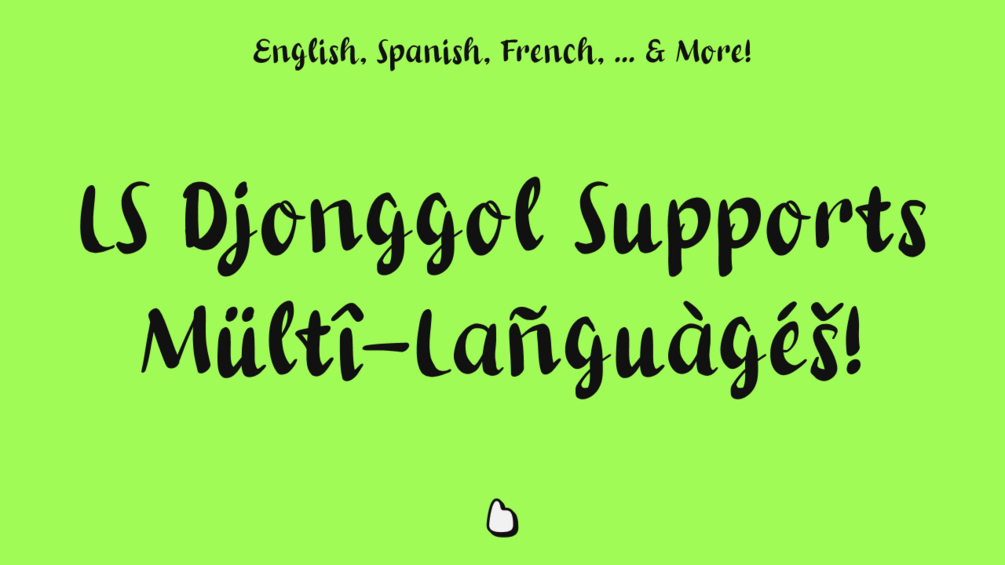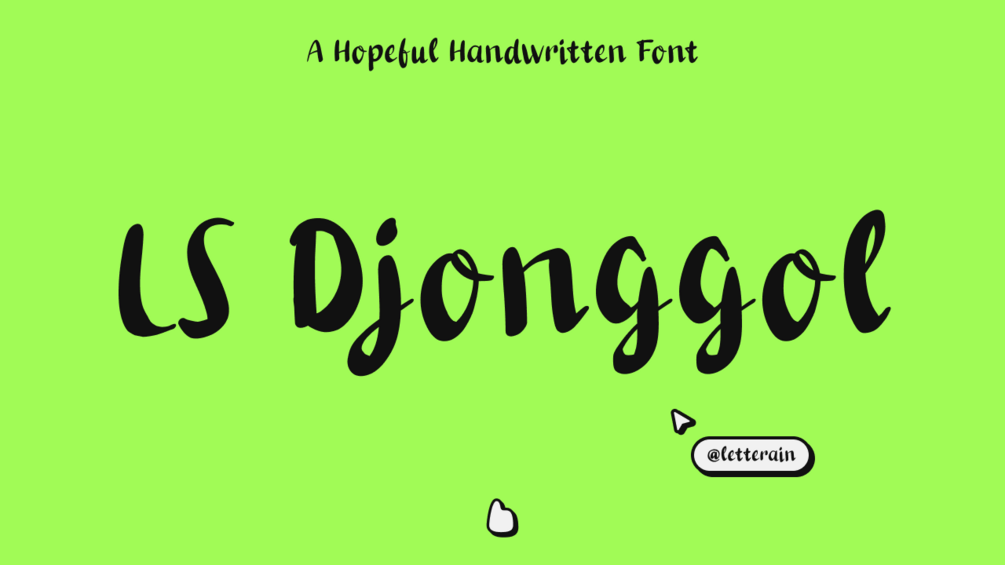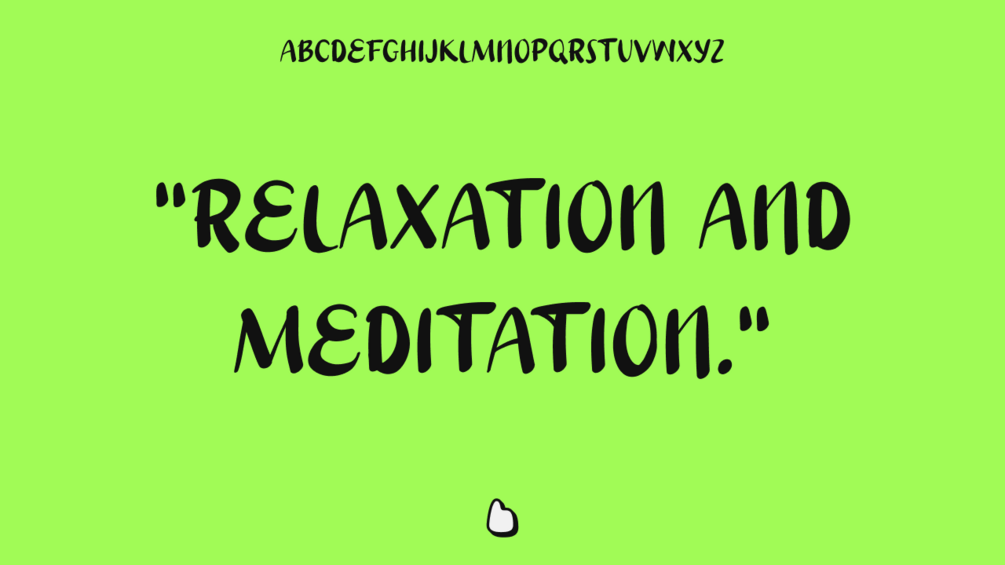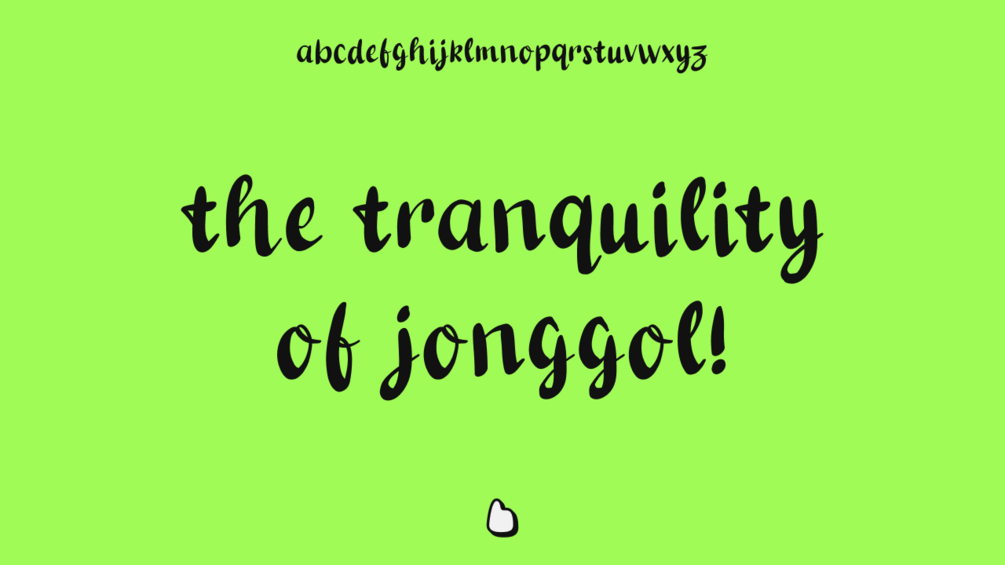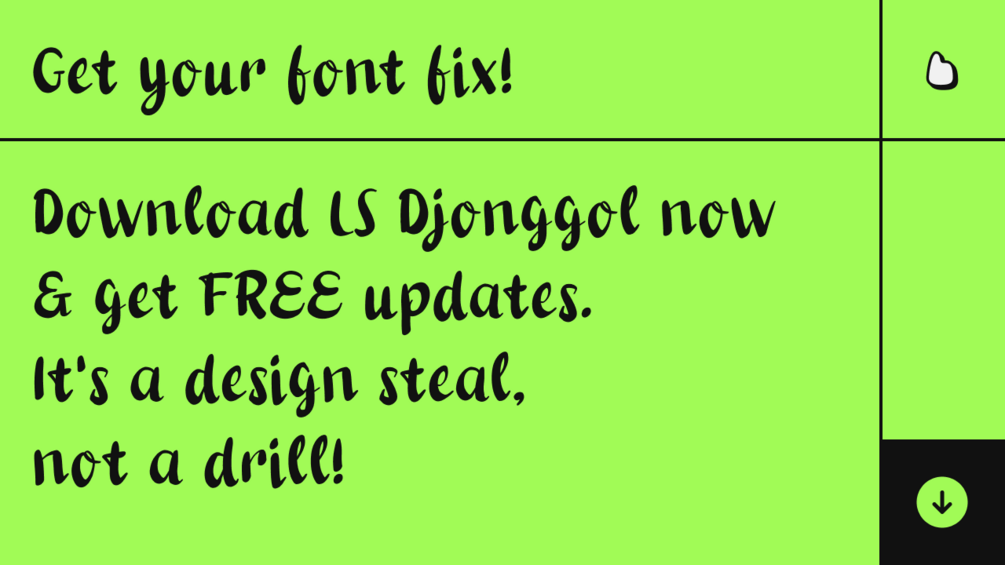
LS Djonggol - A Hopeful Handwritten Font (013/365)
✍️ Description in progress? No need to stress, this font's ready to impress!
🍃 Unlock creativity, unleash your best, and let the font do the rest!